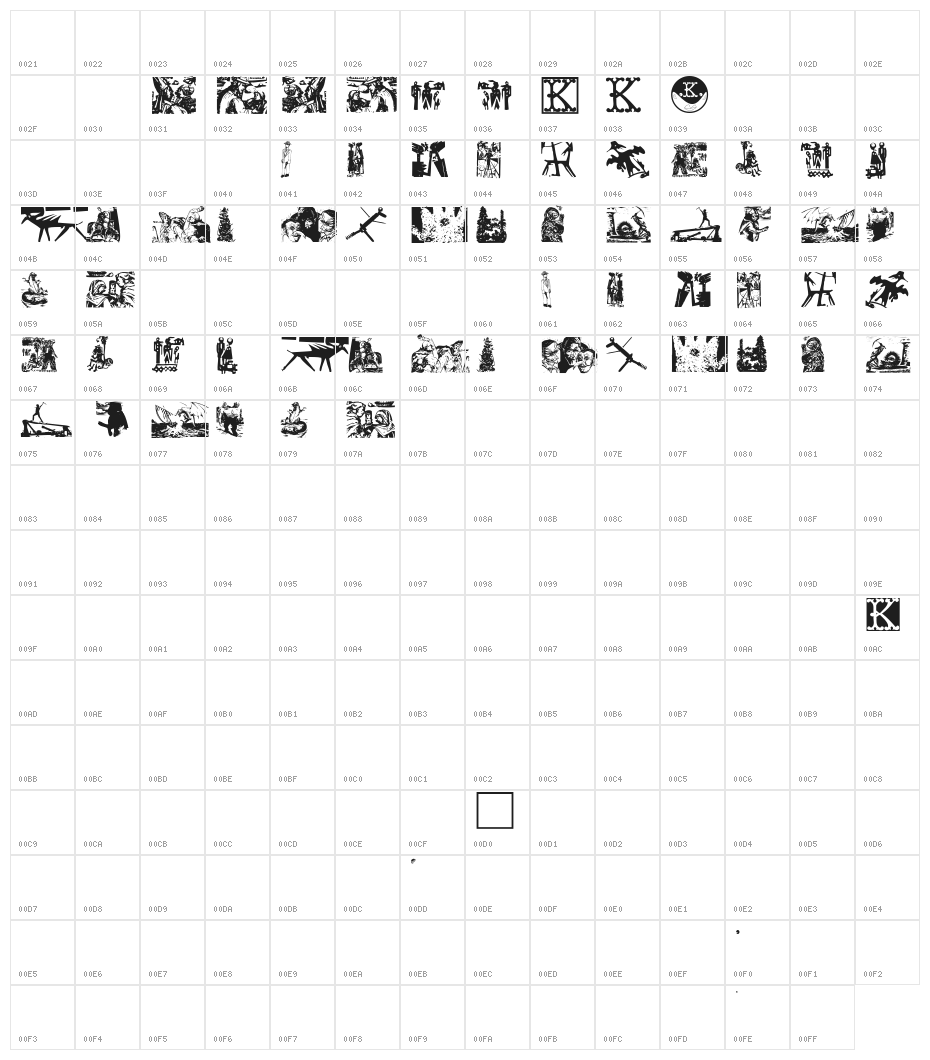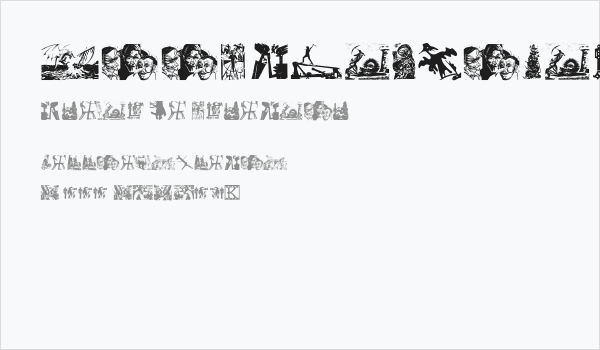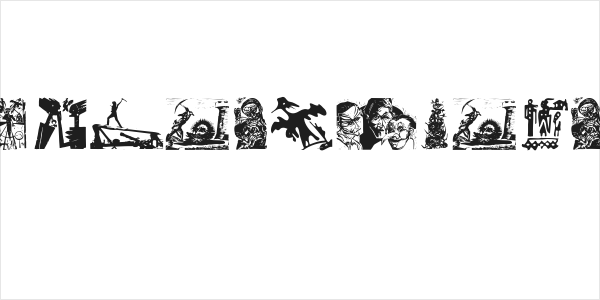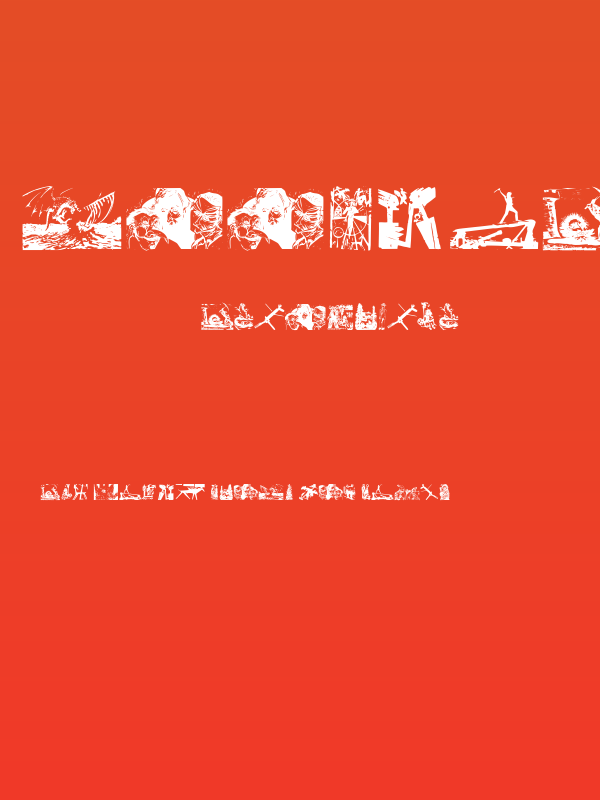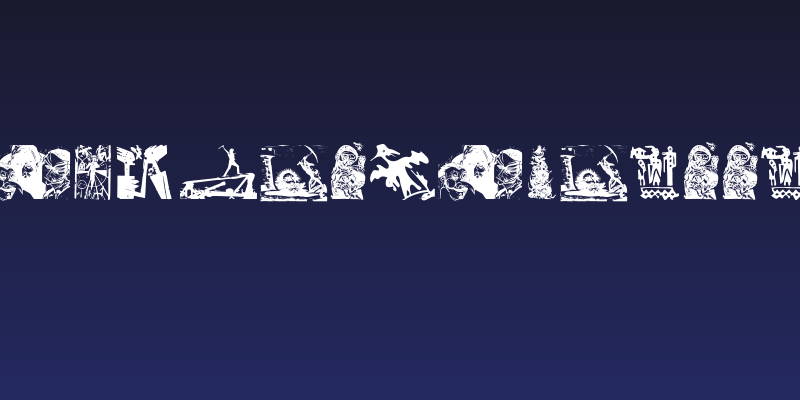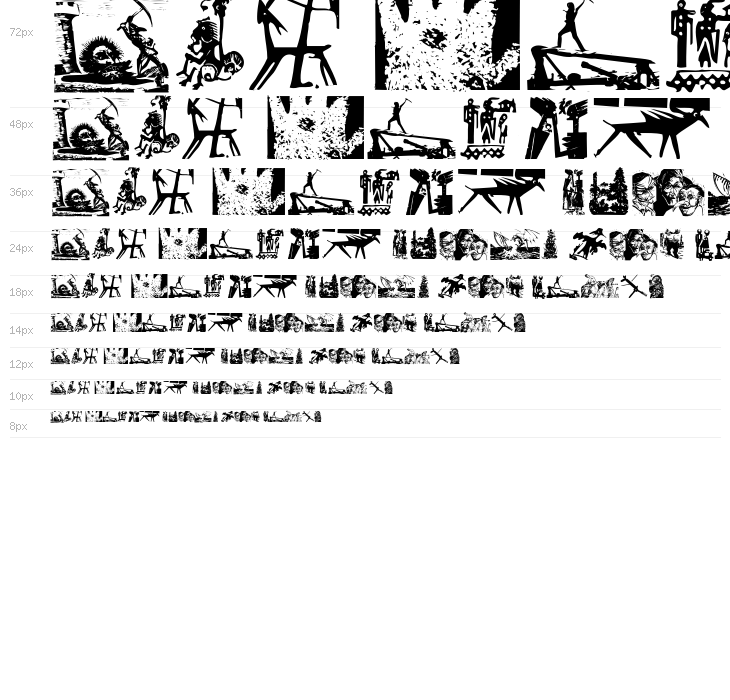
WoodcutsFontissimo Font
This font is a highly decorative and illustrative typeface, featuring intricate woodcut-style designs within each character. Each letter and symbol is crafted with detailed imagery that resembles traditional woodcut prints, often depicting scenes or figures. The style is reminiscent of historical illustrations, providing a vintage and artistic feel. The characters are bold and complex, making them suitable for creative and thematic projects. The font's unique design elements make it stand out, offering a distinct visual appeal that captures attention.
Overall StyleVintage
Use CaseLogos, Posters, Artistic projects
Proposed ProjectsIdeal for artistic projects, historical themes, book covers, posters, and any design requiring a vintage or illustrative touch.